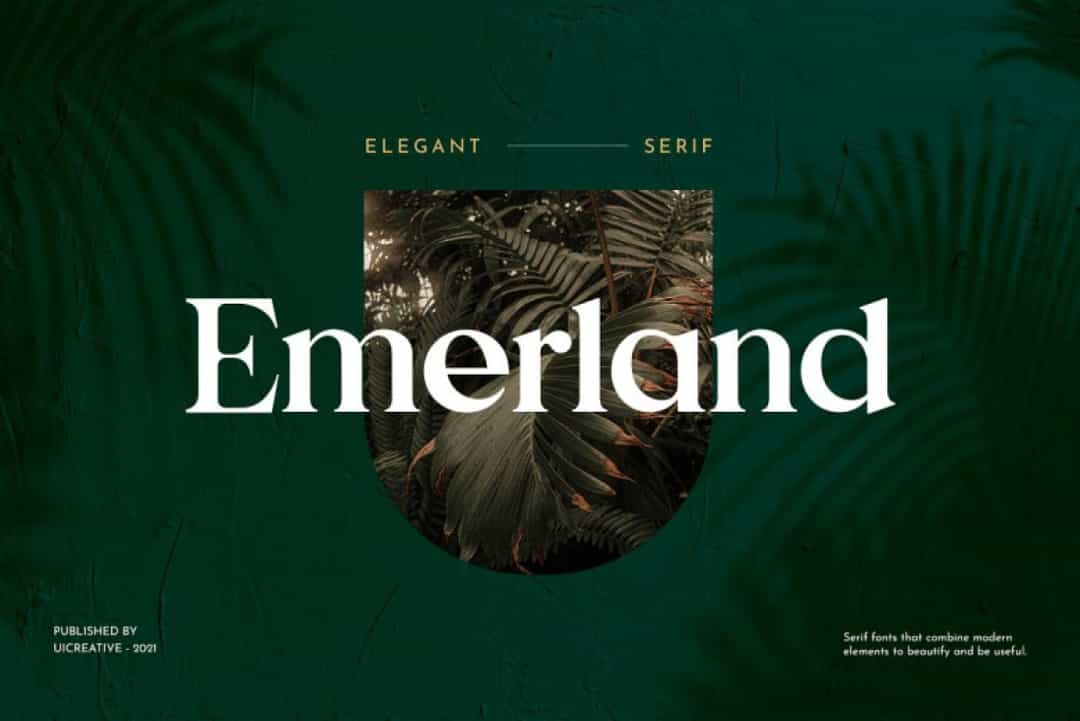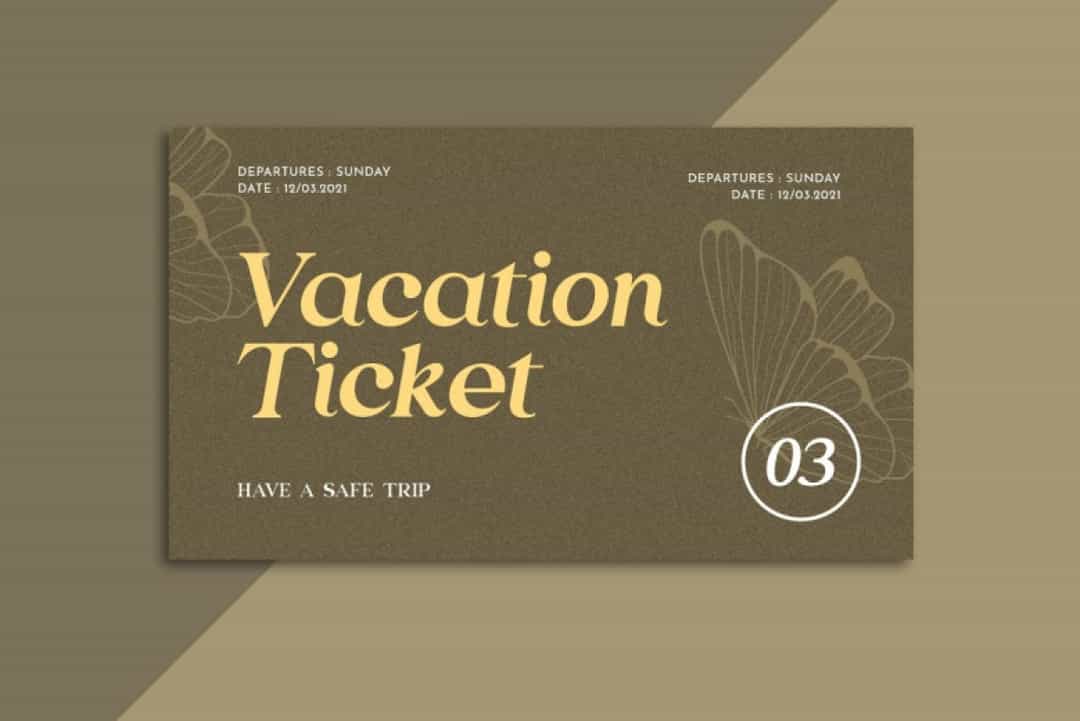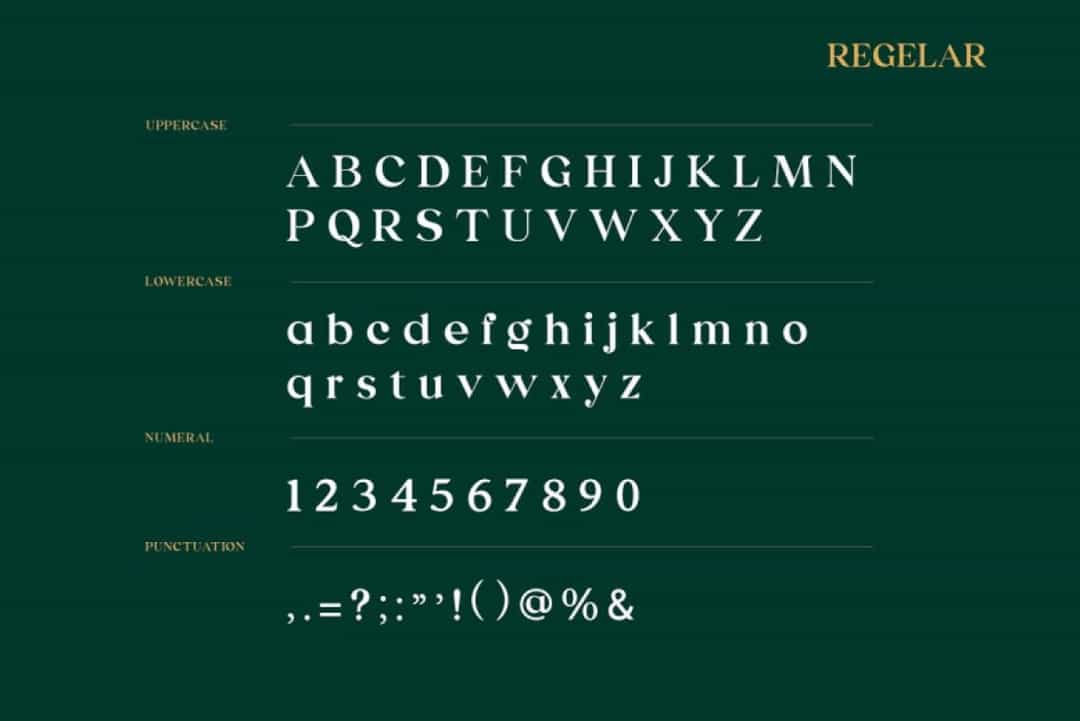
Emerland Serif Font, our newest product, is an elegant, classy and contemporary Serif font that makes an impactful statement about modernity and sophistication. Perfect for use in logo, signature, stationery wedding invitations, typography quotes for book covers or magazine covers as well as headers on websites for clothing packaging design, branding purposes etc.